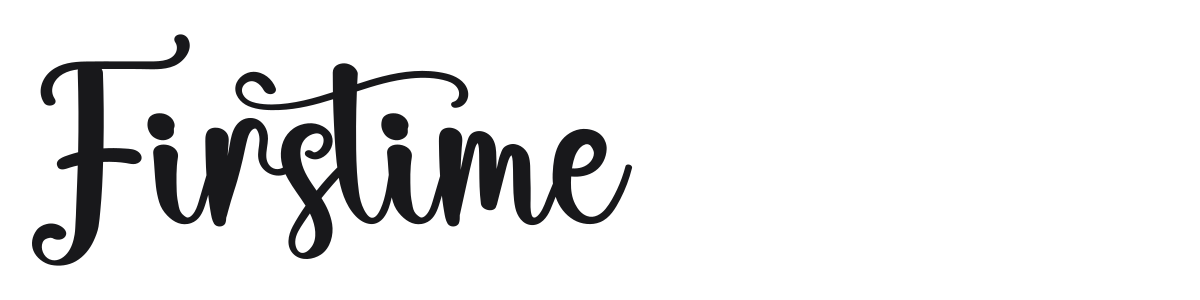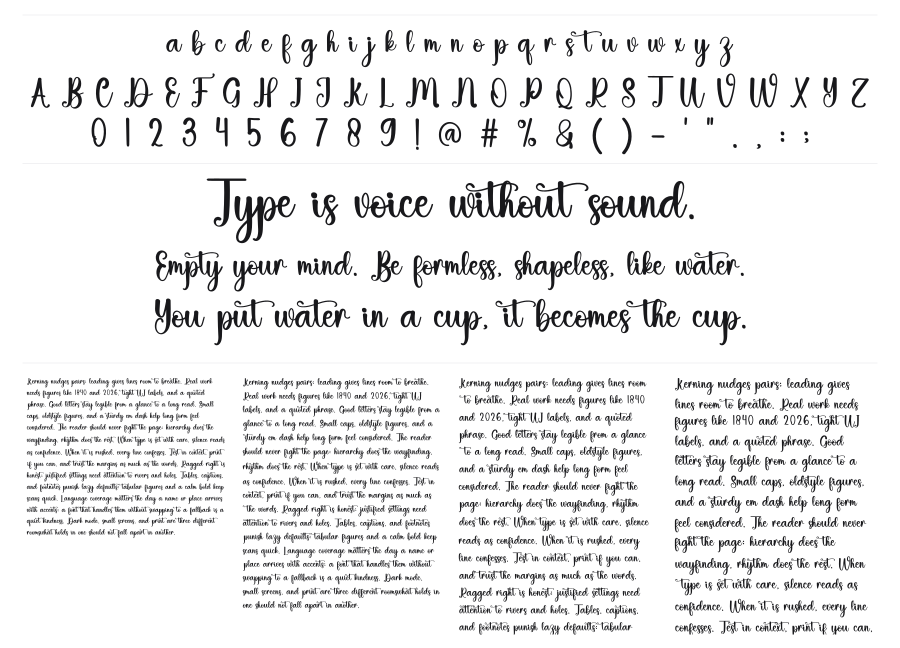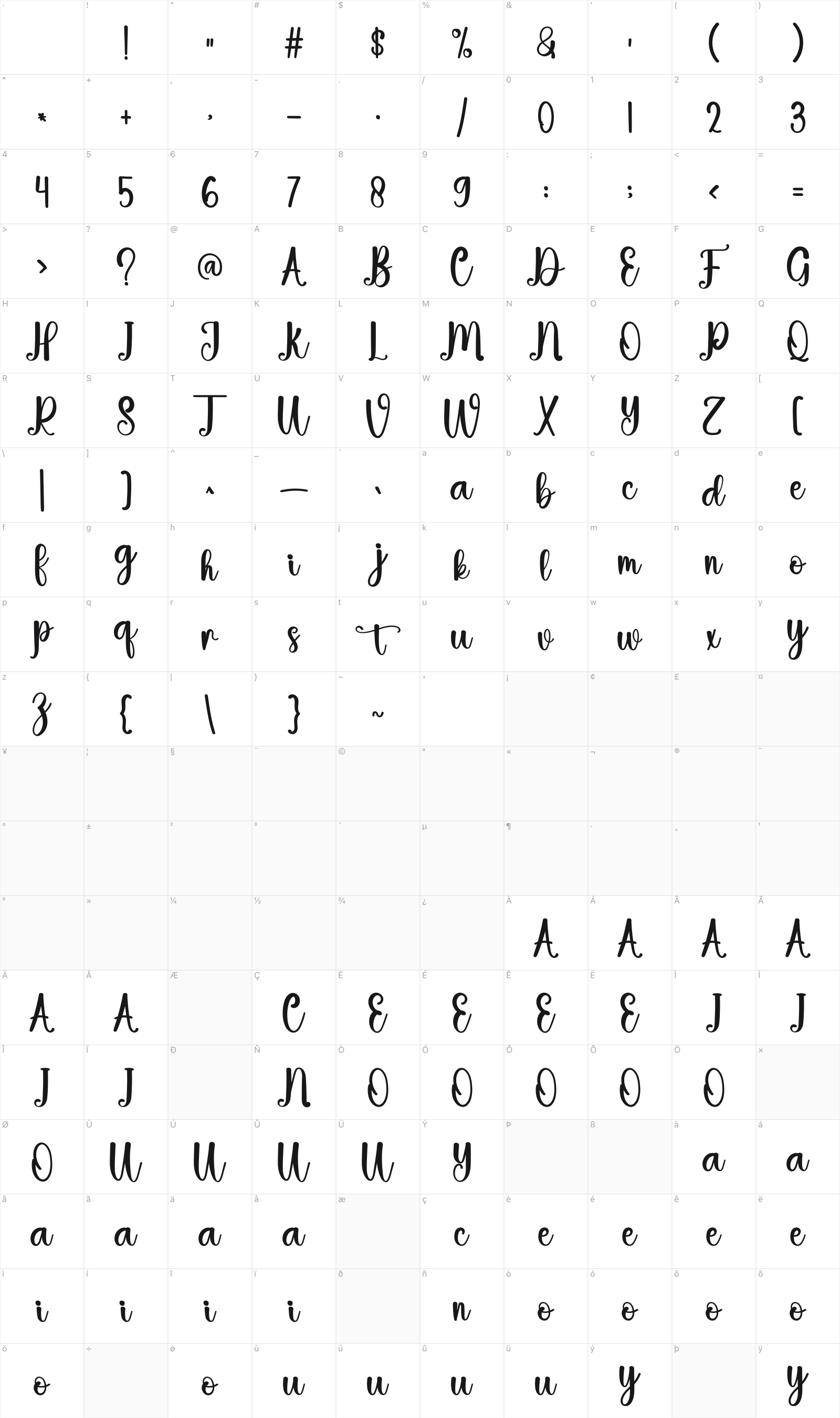
Firstime
by PiPi Creative STUDIO
Firstime is a lively casual script with a bouncy baseline and smooth connected strokes that feel freshly handwritten. The generous loops, curling terminals, and moderate stroke contrast give it warmth without tipping into formality. It works well at large sizes for logos, packaging, and social graphics where a personal, upbeat tone is needed.